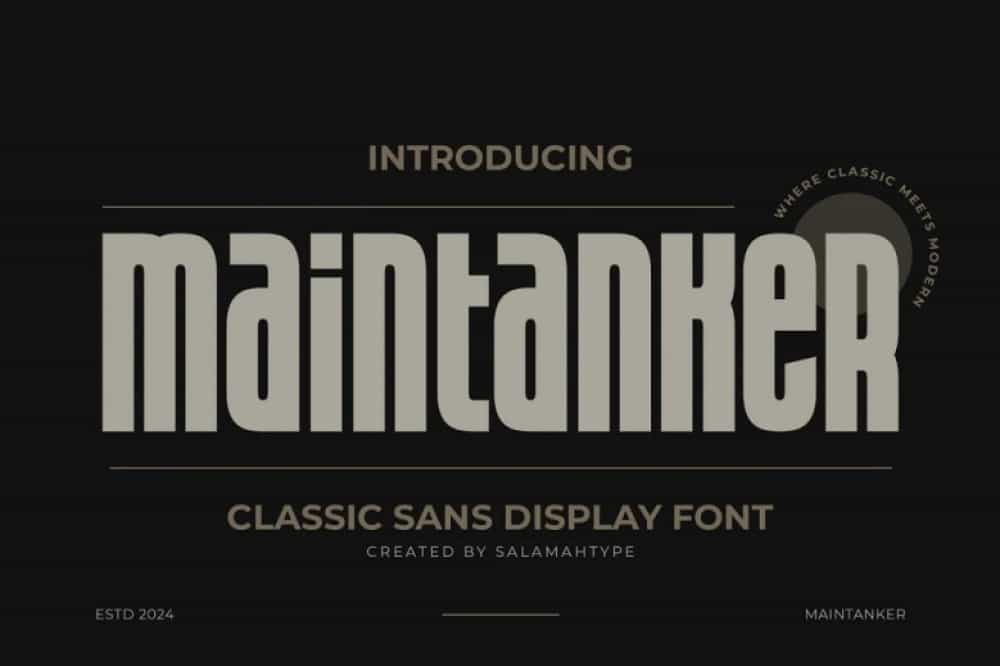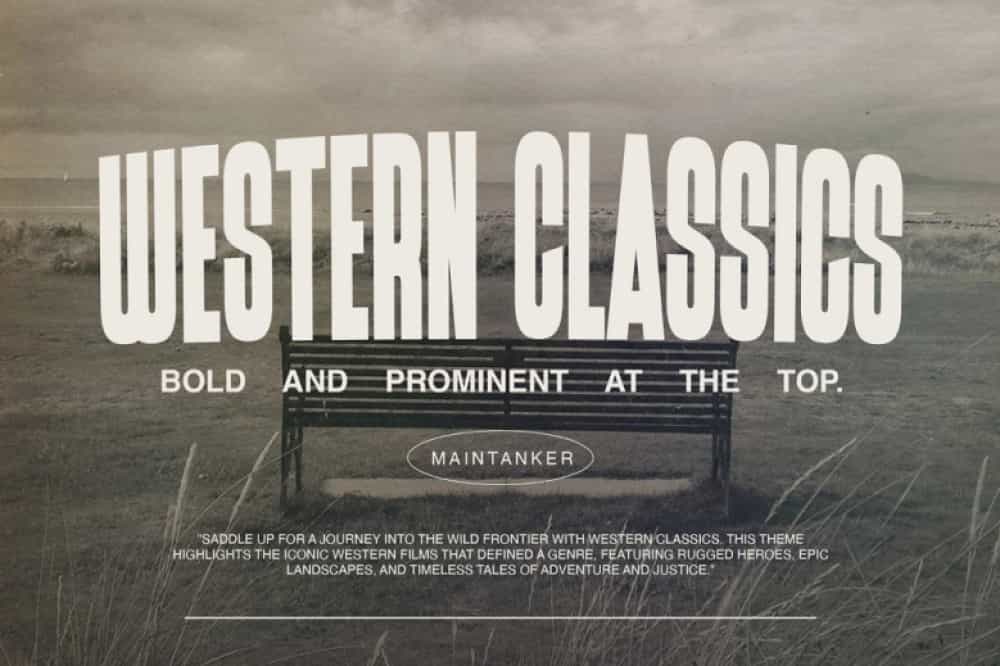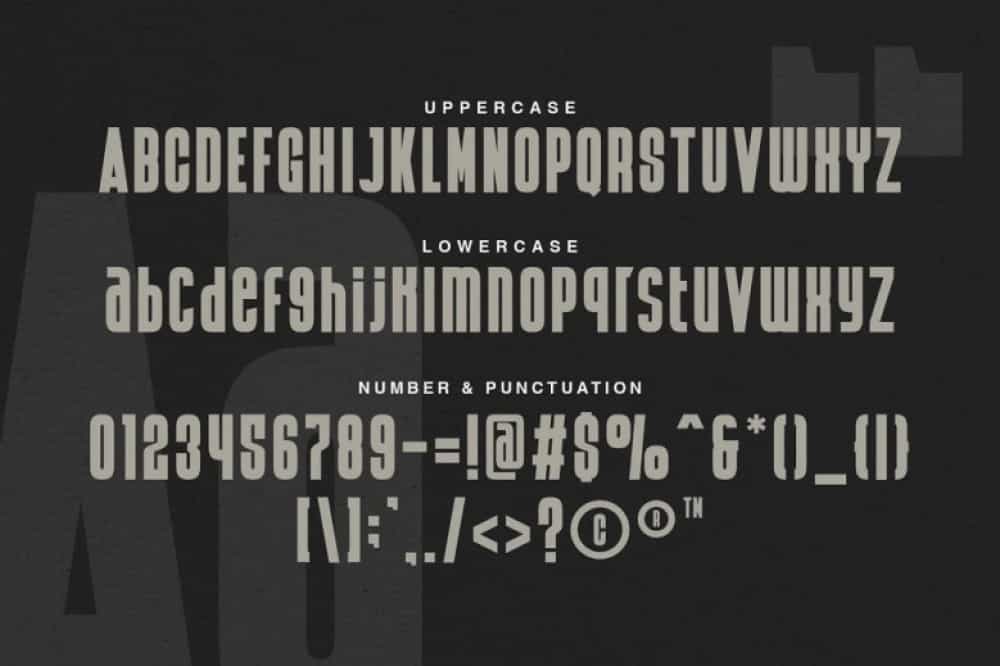
Maintanker is a a strong condensed sans display font suited for use in logos or as headers on product packaging. This particular style is quite distinguishable and becomes even more so when it is combined with the use of both upper and lower case letters.